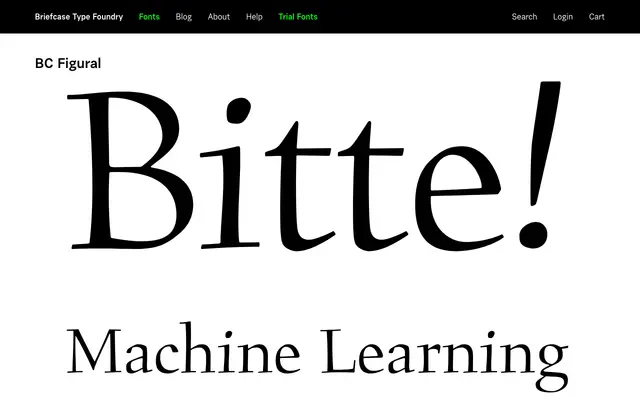
A revival drawing on the Czech type tradition, likely referencing Oldřich Menhart's mid-century Figural.
BC Figural sits within Briefcase Type Foundry's catalogue of Central European type revivals and originals. The name points directly to the celebrated Czech metal type Figural, designed by Oldřich Menhart in the 1940s, a calligraphic serif rooted in pen-drawn letterforms. Specific weight and style details were not available on the page at time of capture.
The name Figural references the classic Czech typeface by Oldřich Menhart, which is a calligraphic transitional serif; without further page detail, this lineage informs the category choice.